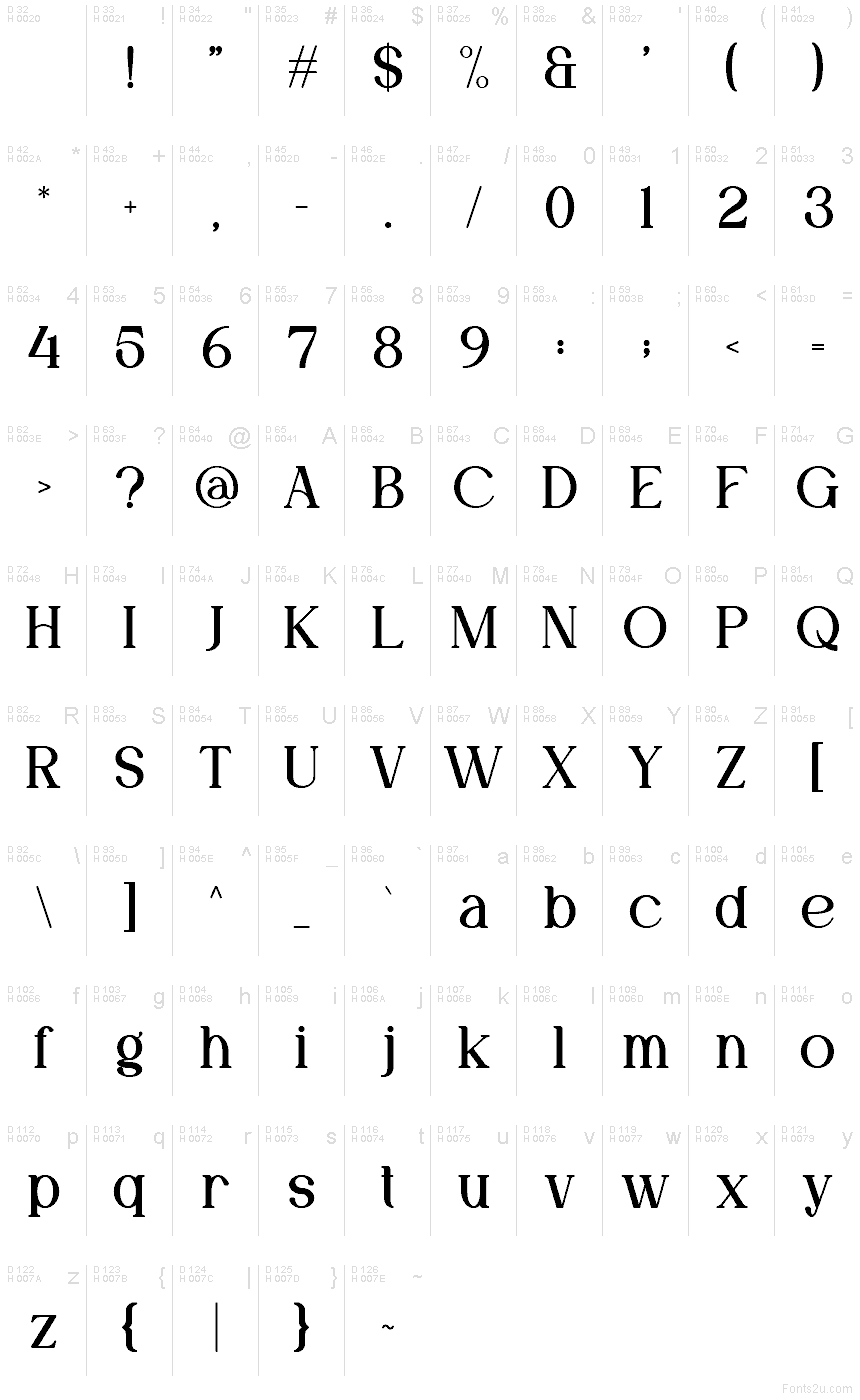
MOELA Semi Bold
Moela Semi Bold font by Gilang Ternadho is a vintage serif typeface with an elegant style, strong presence, and artistic flair. The modern font carries sophisticated features within well-balanced characters that are versatile for numerous design projects which require a unique eye-grabbing element.